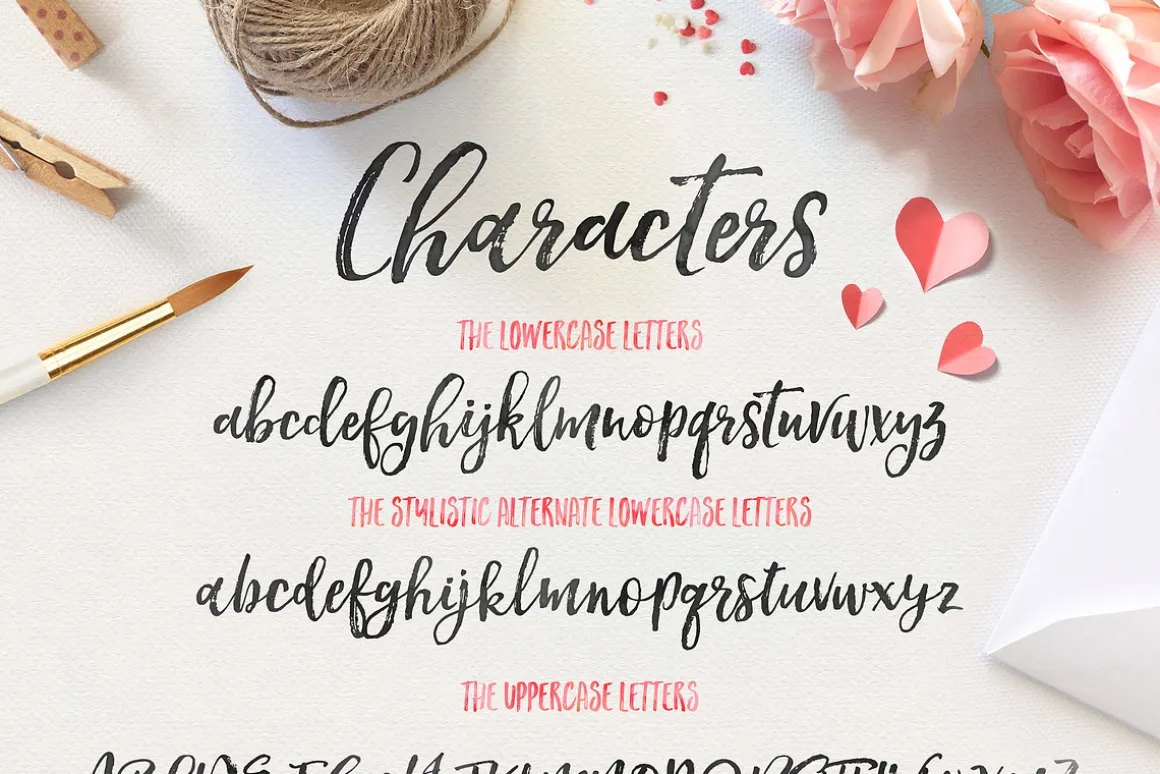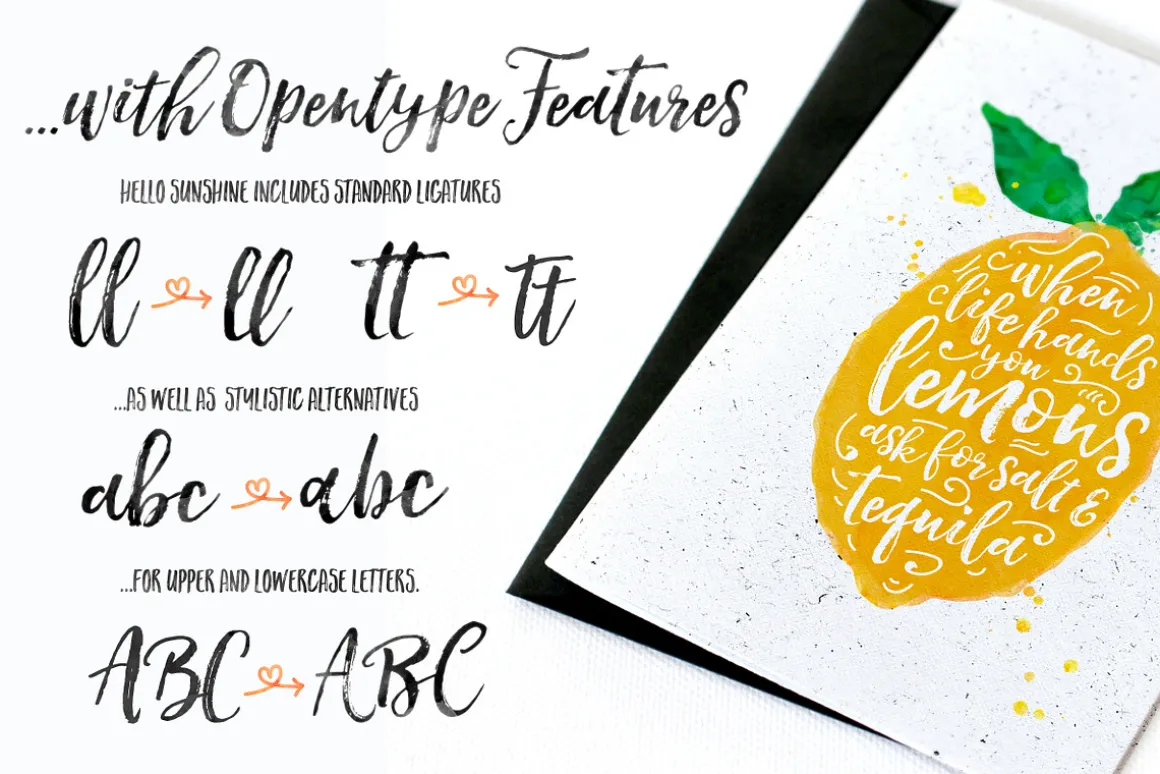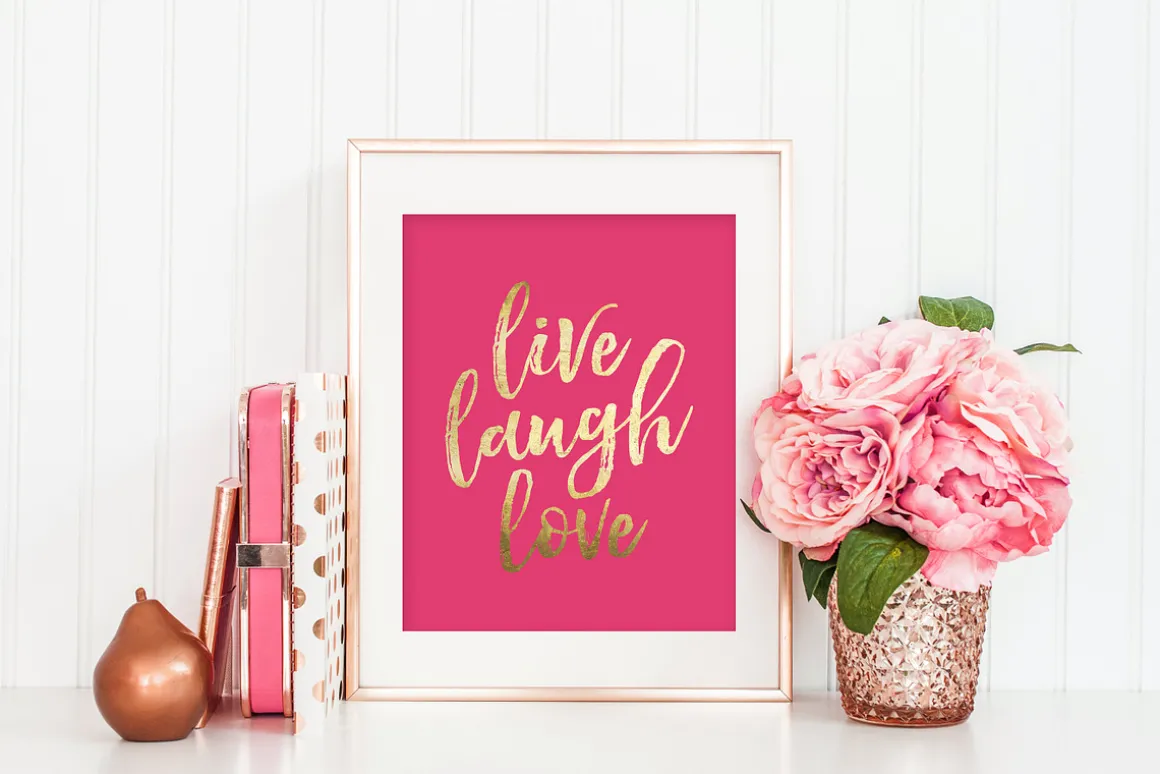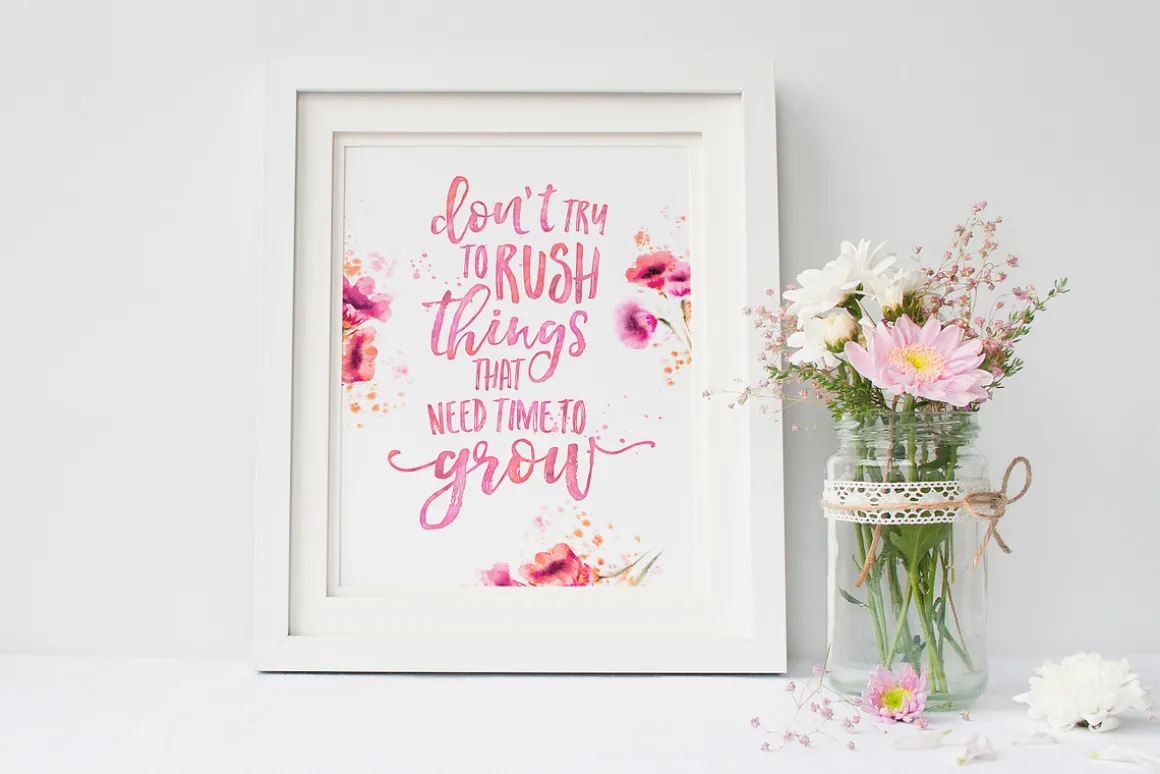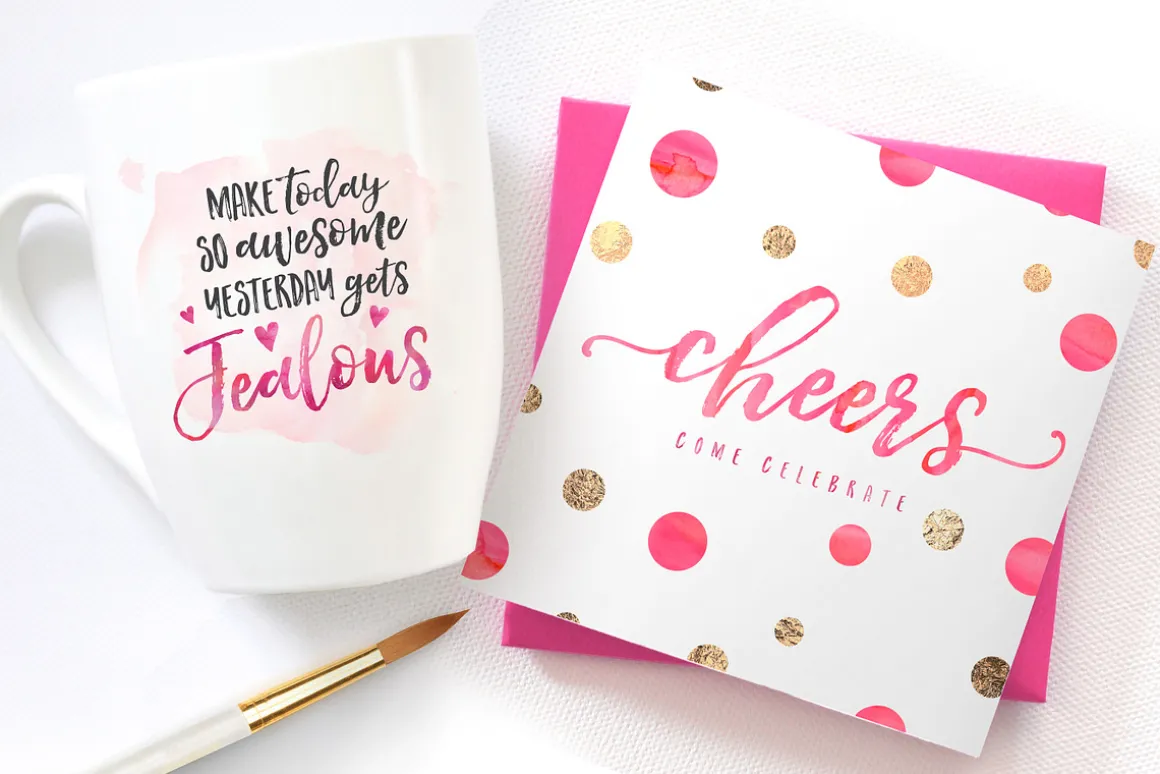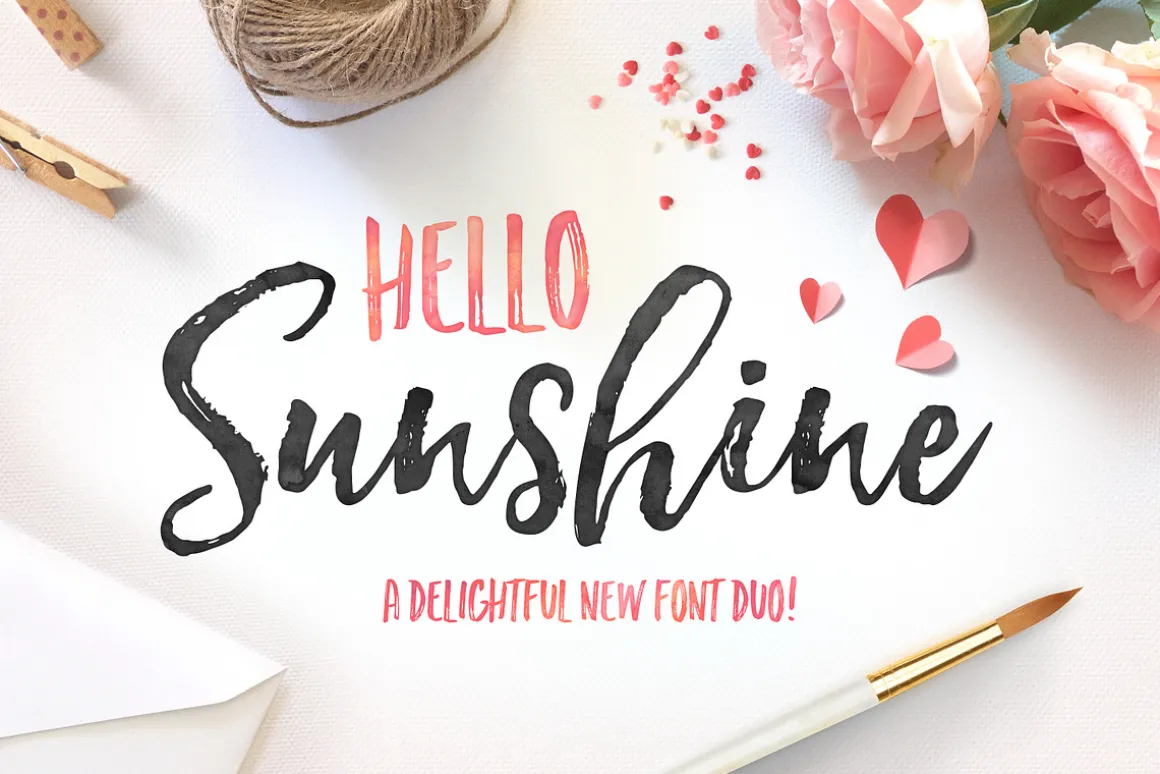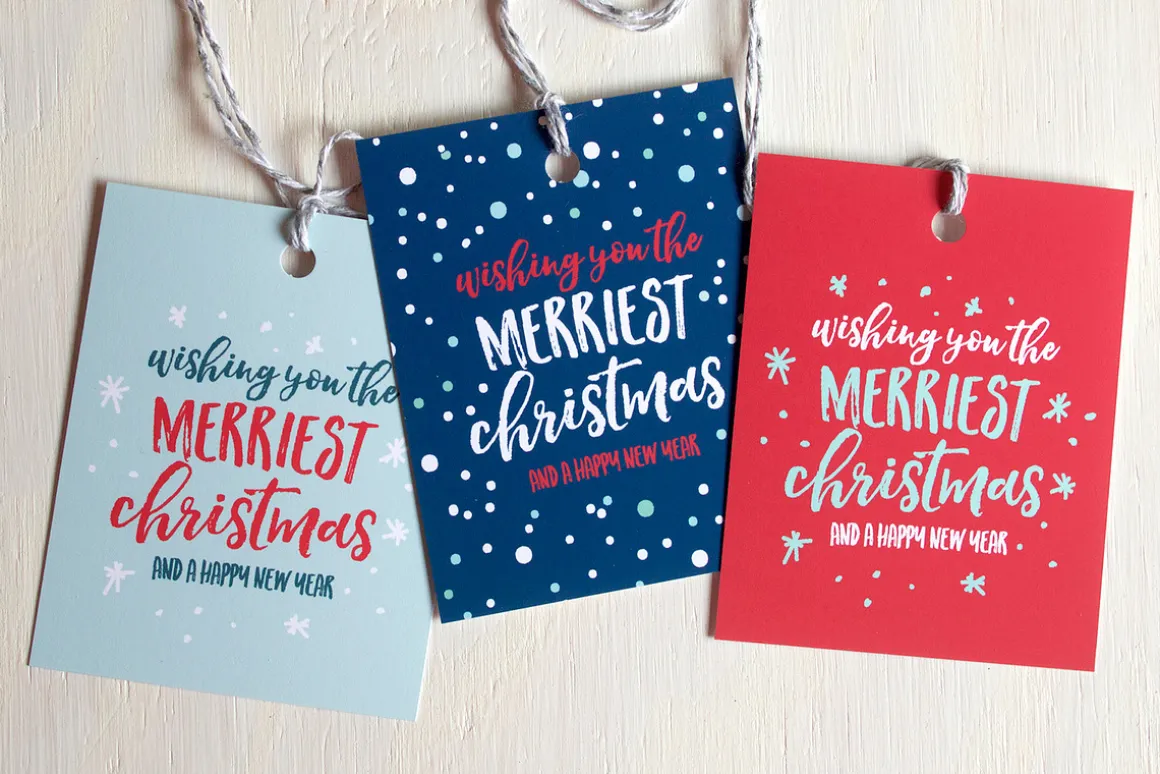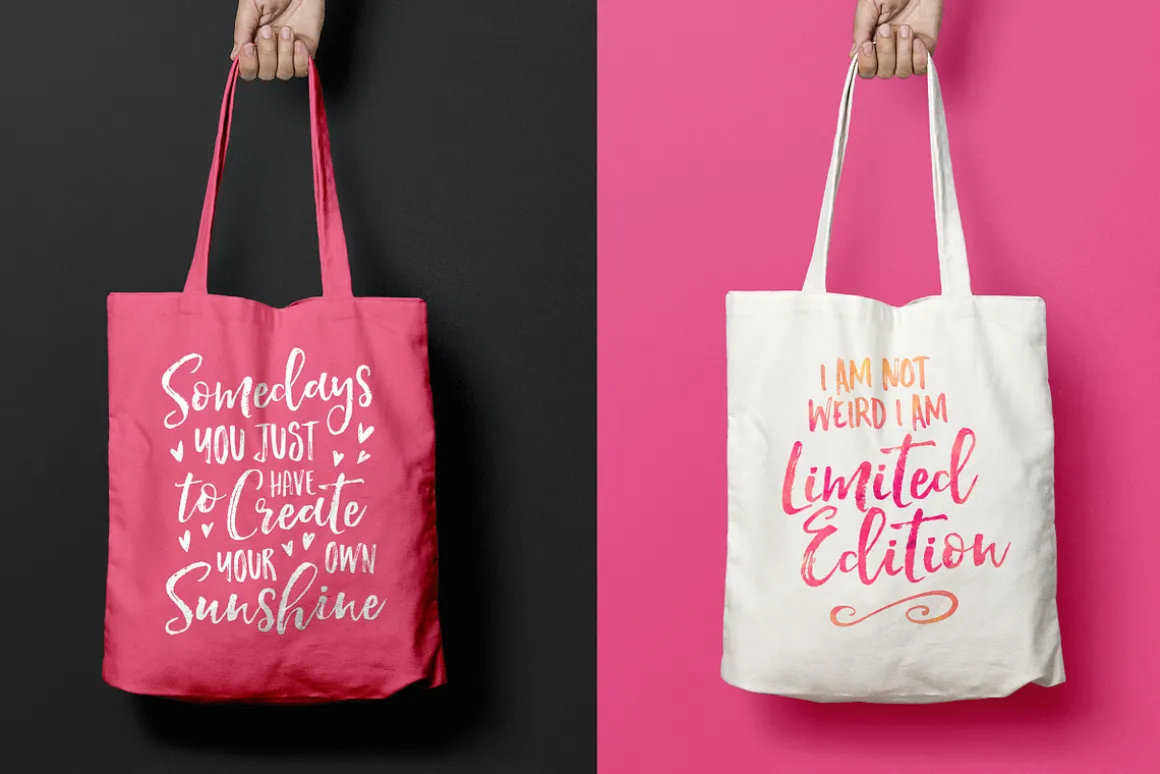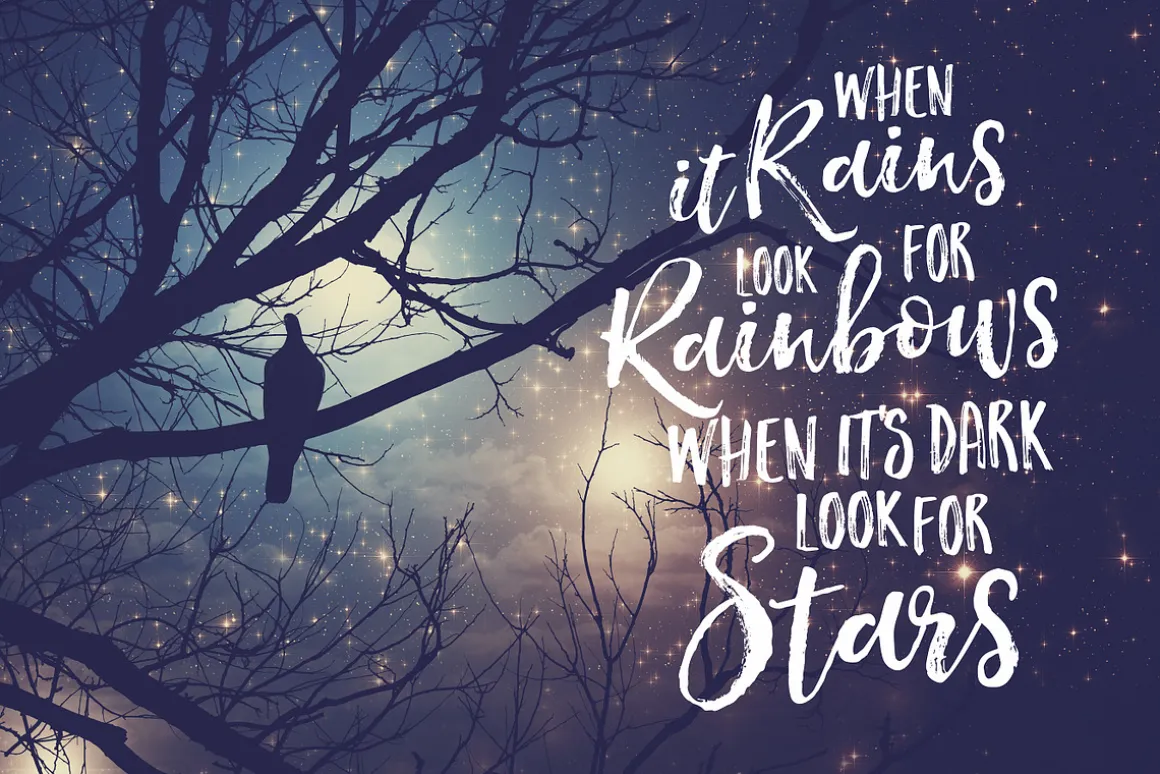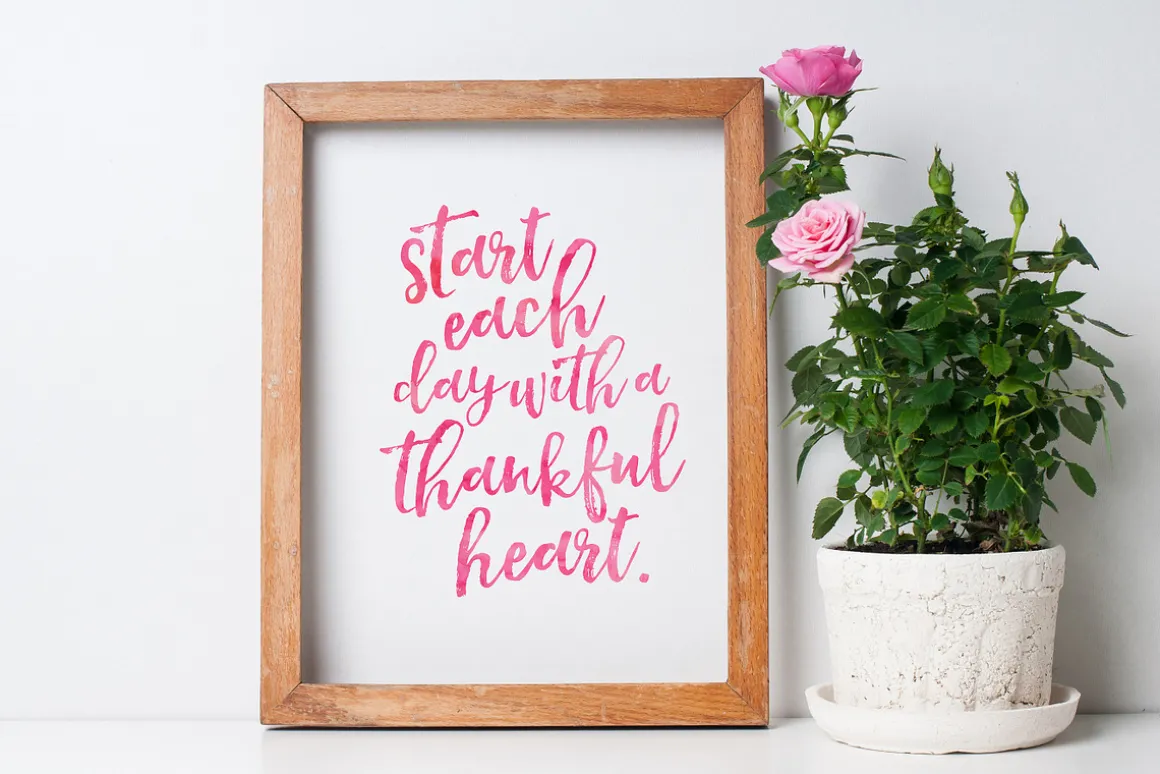
Introducing Hello Sunshine! A delightfully playful font duo with oodles of character!
Hello Sunshine is a hand brushed typeface, with authentic tell-tale dry brush imperfections, and a very bouncy baseline 🙂 It has a perfectly paired complimentary marker font , and a super handy set of 52bonus ornaments.
Hello Sunshine Script has a large variety of alternate characters ,allowing you to make each word look completely unique to the next! Ligatures are also included also – to bring true authenticity to your design. It has multilingual support with accented characters for international users.
A Happy Duo : Hello Sunshine Marker is a complimentary dry marker font, that works in harmony with Hello Sunshine Script to create awesome typographical creations in a jiffy – get some inspiration for the previews above.
Which international languages does Hello Sunshine support? Hello Sunshine has accented and special characters that support the following languages : Basque, Bosnian, Catalan Cornish, Croatian, Czech, Danish, Dutch, Embu, English, Esperanto, Estonian, Faroese, Filipino, Finnish, French, Galician, German, Hungarian, Icelandic, Indonesian, Irish, Italian, Malay, Maltese, Manx, Maori, Meru, Morisyen, North Ndebele, Norwegian Bokmål, Norwegian Nynorsk, Nyankole, Oromo, Polish, Portuguese, Romansh, Serbian (Latin), Slovak, Slovenian, Spanish,Swedish, Swiss German.